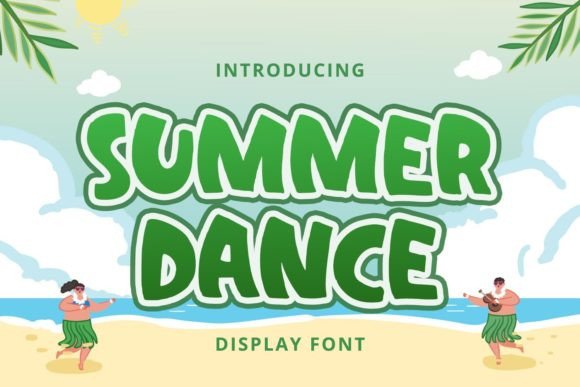
Summer Dance Font
Introducing Summer Dance Font, the display font that captures the essence of summer's carefree spirit. Its playful and authentic vibe adds a personal touch to your creative projects, inviting viewers to embark on a journey of joy and exuberance. With its captivating curves and lively strokes, this font brings a breath of fresh air to any design.
Whether you're crafting personalized cards, creating eye-catching social media posts, or designing products that radiate warmth and happiness, Summer Dance Font is your perfect companion. Its versatility extends from whimsical invitations to vibrant logos, allowing you to infuse your creations with a sense of playfulness that resonates with audiences.
With Summer Dance Font, your designs will burst forth like a chorus of laughter on a sunny afternoon. Its energetic vibe breathes life into every letter, making your words dance with delight. Experience the pure joy of self-expression as this font ignites your creativity and transforms your projects into captivating masterpieces.
Embrace the magic of Summer Dance Font and watch as your designs blossom into expressions of pure joy and lightheartedness. Let your imagination soar and create works of art that capture the essence of summer's carefree spirit.
Unlock the endless possibilities of Summer Dance Font today and immerse yourself in a world where creativity knows no bounds. Dance along the lines of imagination as you craft designs that radiate happiness, leaving an unforgettable mark on the hearts of those who encounter them.